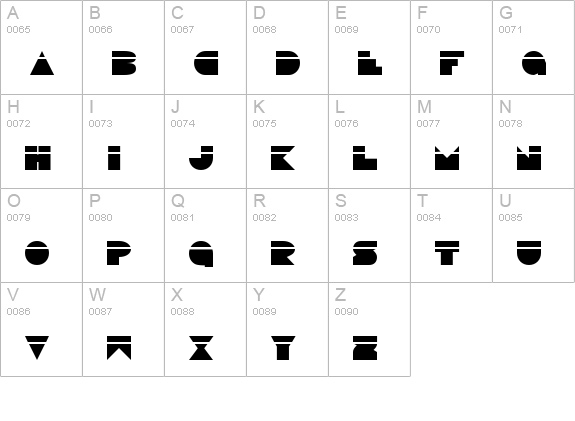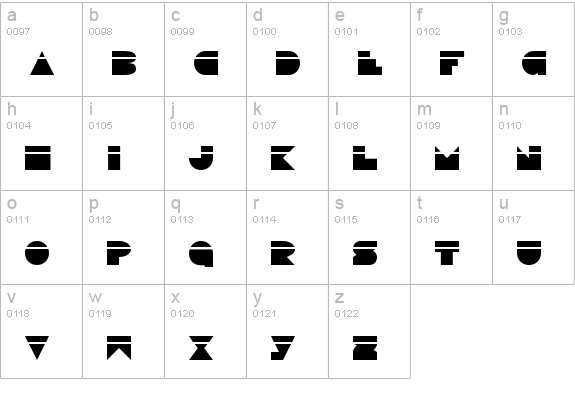
Disco Deck Laser font is a vibrant and energetic display typeface that brings to mind the dazzling lights and pulsating beats of a disco dance floor. With its sleek lines and futuristic aesthetic, this font is perfect for capturing the excitement and style of the disco era. The Disco Deck Laser font is a must-have for designers looking to add a touch of retro flair to their projects. Whether you're creating party flyers, event posters, or album covers, this font will make your text pop and stand out from the crowd. Best of all, Disco Deck Laser font is completely free to download at FontsMarket.com. So, go ahead and bring some disco fever to your designs with this eye-catching and dynamic font!